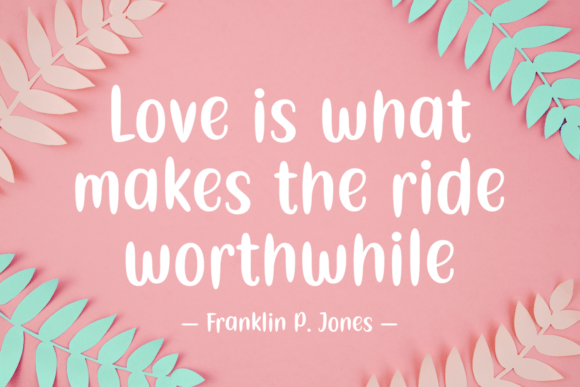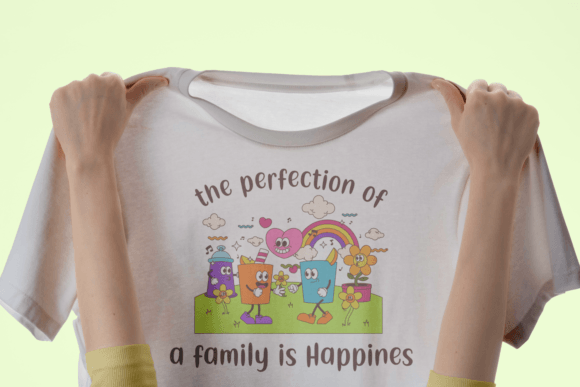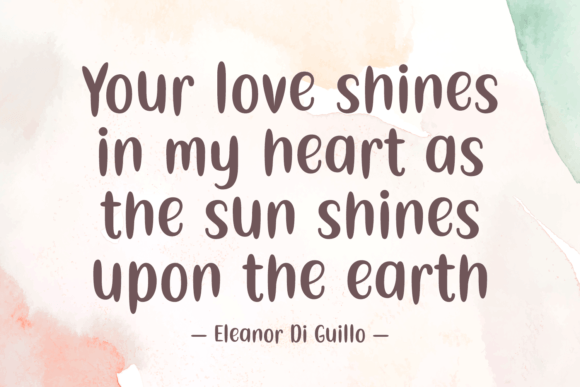
Introduction to Cute Meira Font
Cute Meira is a beautiful and adorable handwritten font.
Add some extra cuteness to your typography designs with this lovely font that will suit a wide range of projects Use it to bring your creative ideas to life.
Why Choose Cute Meira Font?
Cute Meira Font offers exceptional quality and versatility, making it a valuable addition to your design toolkit. Whether you’re creating for personal projects or commercial use, Cute Meira Font delivers professional results.